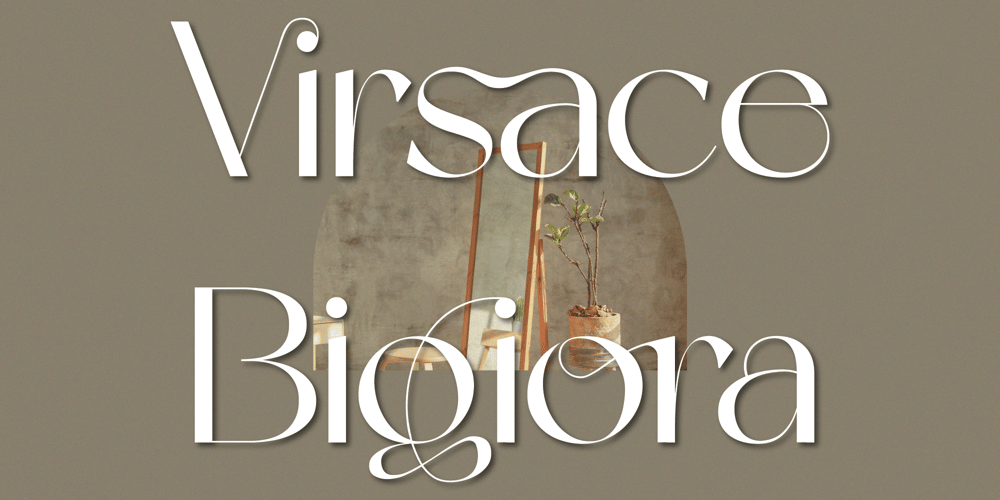
Virsace Bigiora Font Family was designed by El Mehdi CHOUYOUKH and published by Mchcrafter. Virsace Bigiora contains 1 styles and family package options. Virsace Bigiora is a Modern Stylistic Sans SerifA new Sans serif that we created special for branding needs, with extra ligature in unique shape add value of your brand. It so nice to leverage designer or product owner that need solutions to make their design look more stylish and modern. And specially for Virsace Bigiora font, We prepared any ligatures, and any alternate characters to help you create unlimited variations for your creative needs.